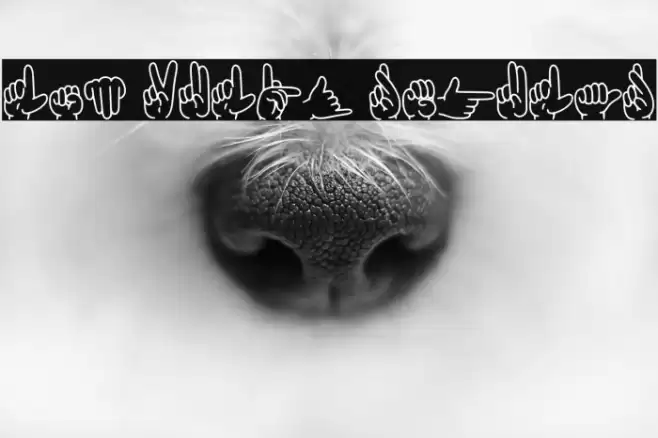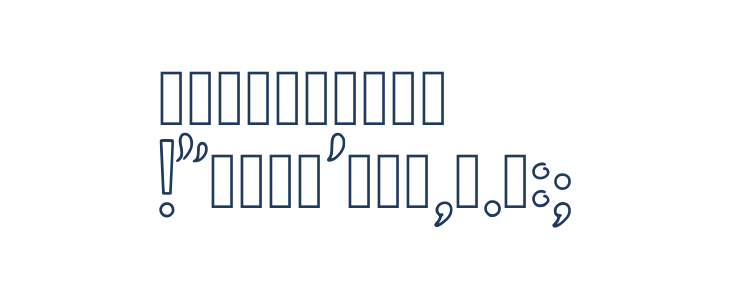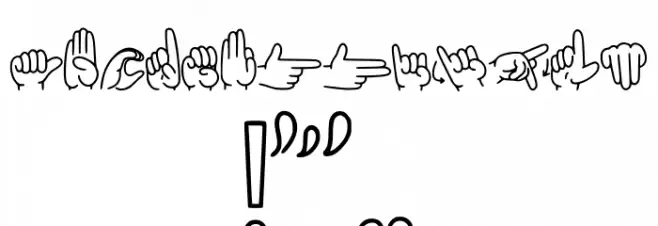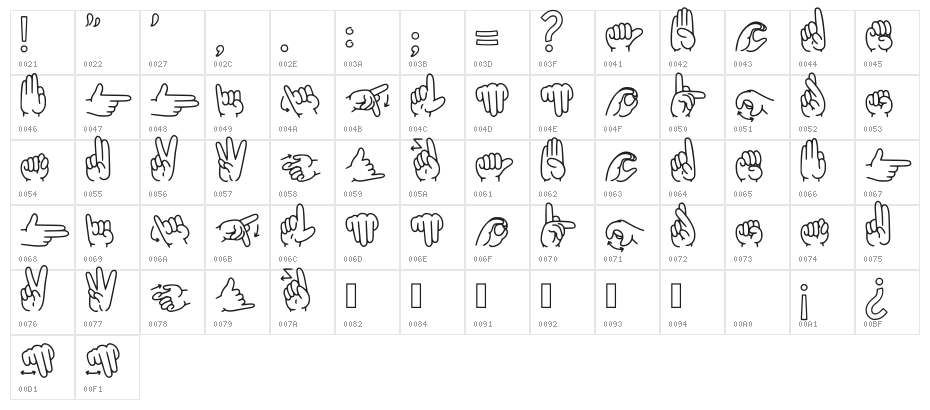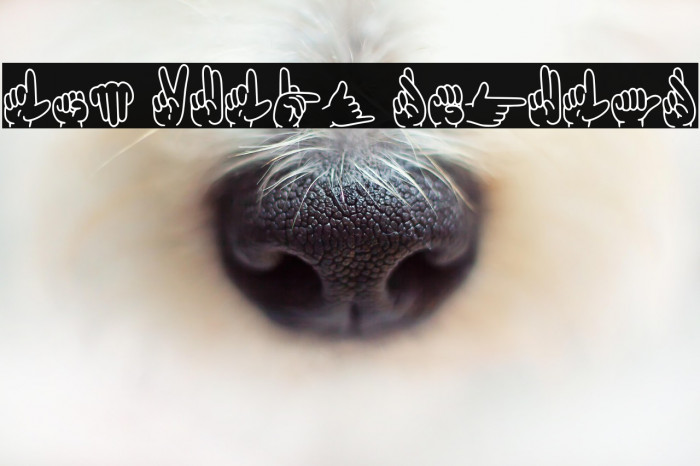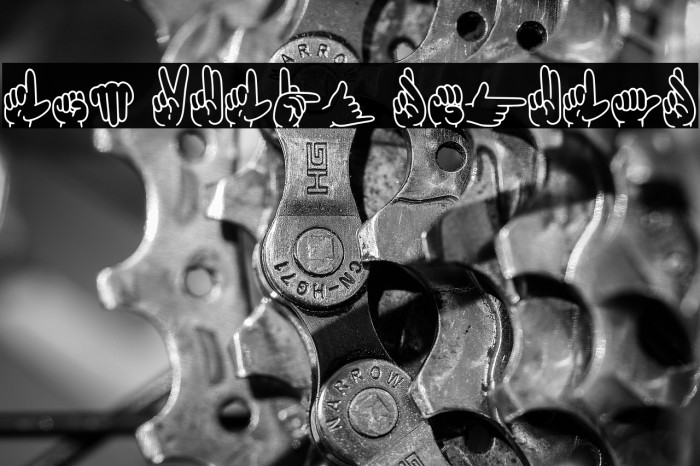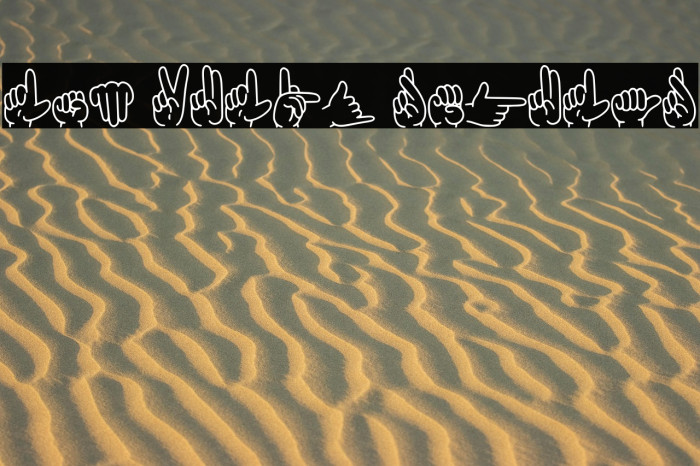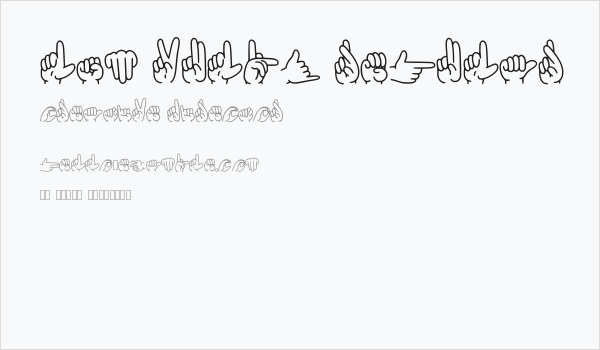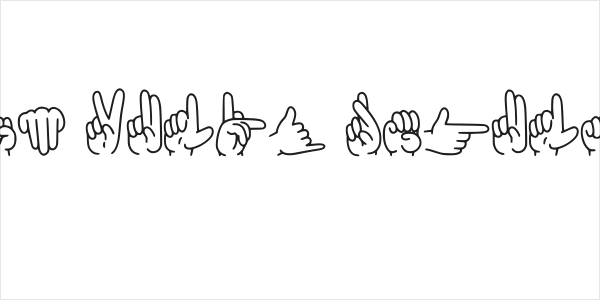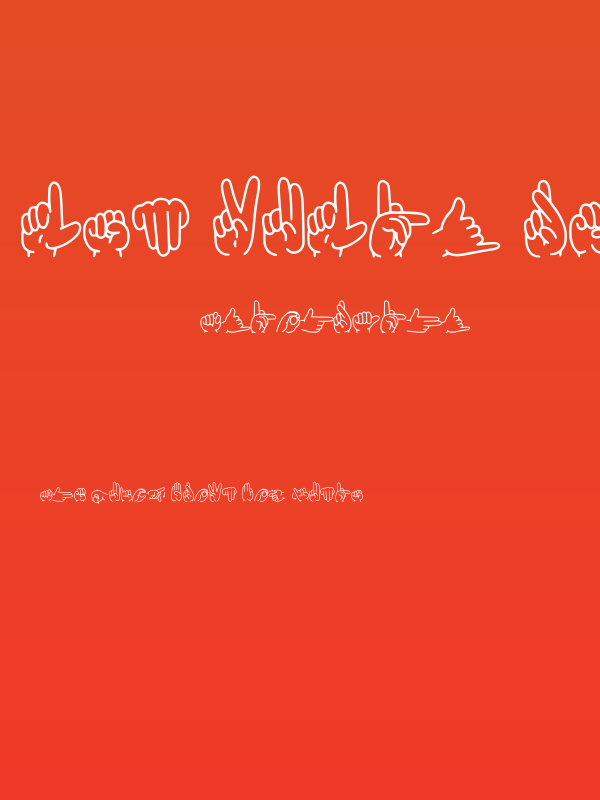
Lsm Vulpy Regular Font
Lsm Vulpy Regular Description
This unique font is designed using hand gestures to represent each letter and number, creating a playful and engaging visual experience. The characters are depicted as stylized hands forming various signs, adding a dynamic and interactive element to the text. The font is highly decorative, making it ideal for projects that require a creative and unconventional approach. The intricate design of each character ensures that the font stands out, capturing attention with its originality and charm.
A decorative font using hand gestures to represent characters from Regular fonts.
- Proposed Projects: Ideal for educational materials, playful branding, or creative posters.
- Use Case: Logos, Posters, Educational Materials